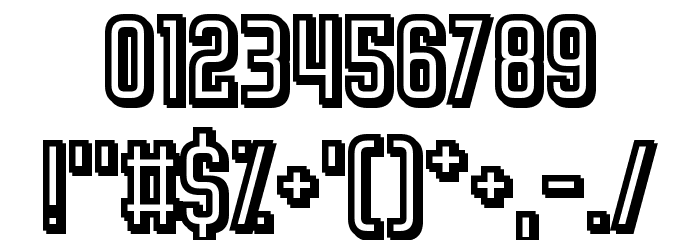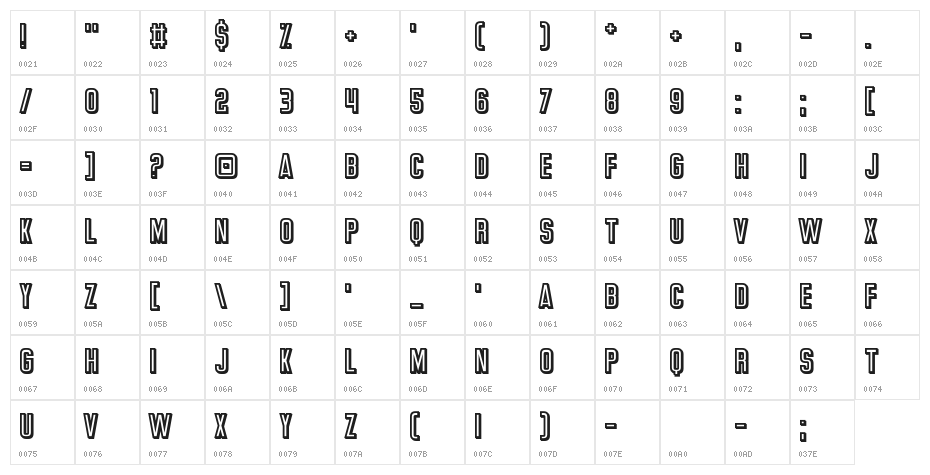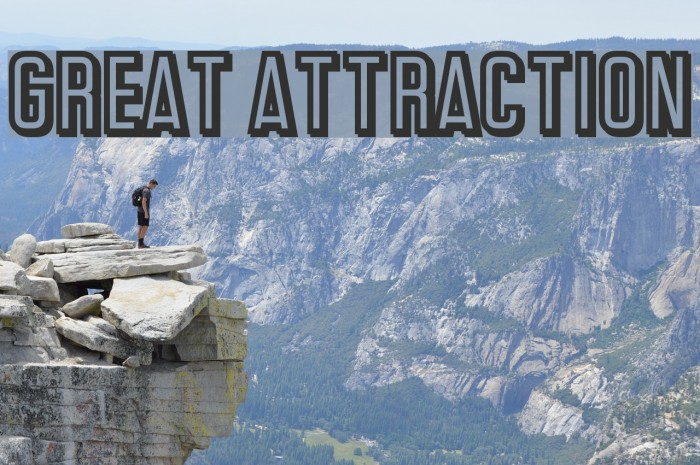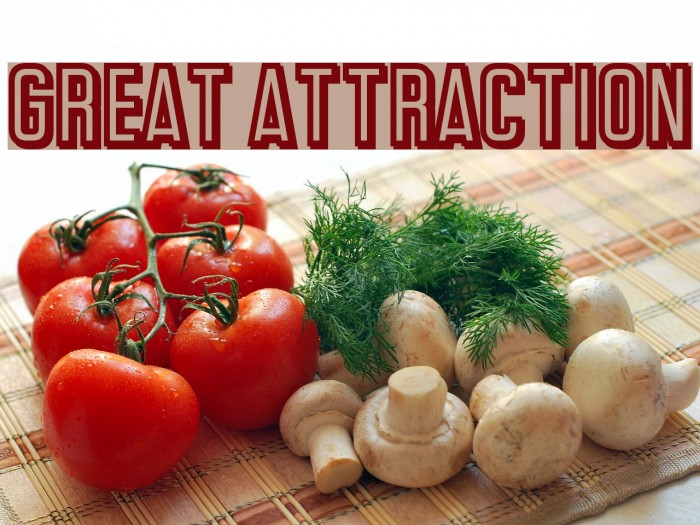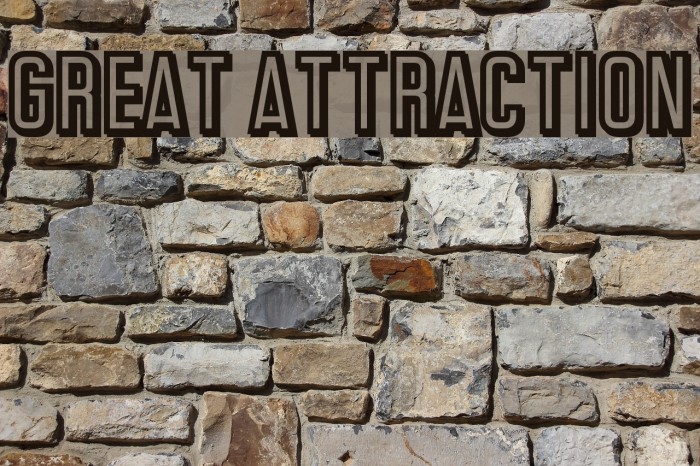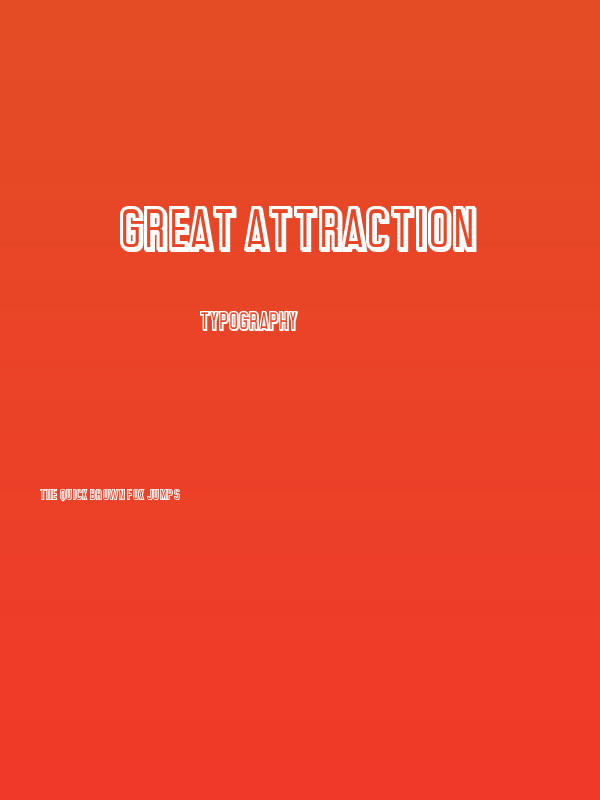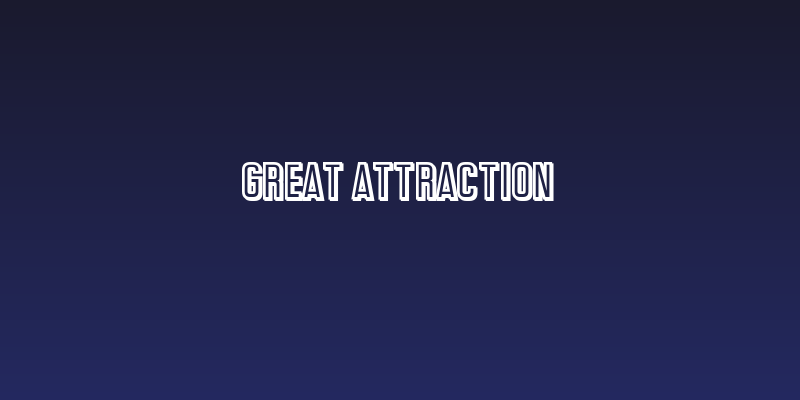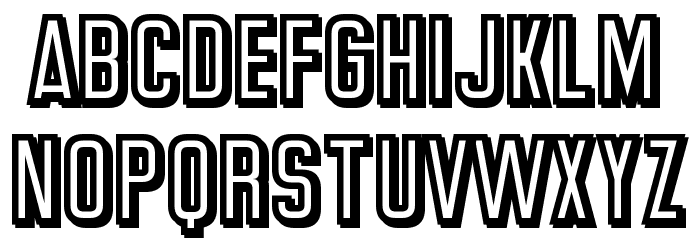
Great Attraction Font
Great Attraction Description
This font features a bold, impactful design with a strong outline that creates a striking visual presence. The characters are uppercase and lowercase, with numerals and a variety of special characters. The style is reminiscent of athletic or collegiate themes, with a modern twist. The letters are well-proportioned, with consistent stroke widths and a slight shadow effect that adds depth. The overall appearance is clean and structured, making it suitable for attention-grabbing headlines or branding projects.
| Proposed Projects | Ideal for sports team branding, event posters, or dynamic headlines. |